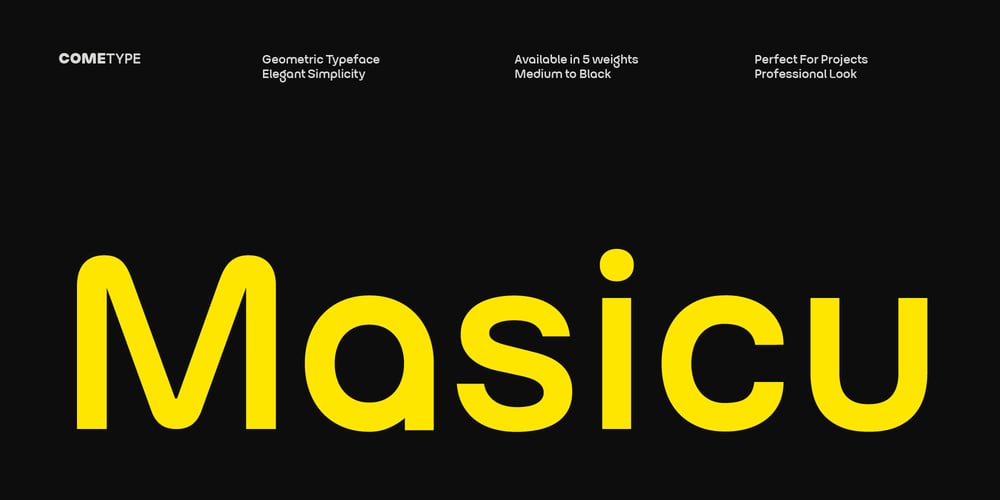
Masicu
Masicu font
Masicu Font Family was designed by abdul artega and published by Come Type. Masicu contains 5 styles and family package options. Masicu is a modern geometric typeface crafted with precision and elegant simplicity. Available in 5 weights—Medium, SemiBold, Bold, ExtraBold, and Black—it provides versatility for a wide range of design needs. Its clean and well-proportioned geometric shapes make it ideal for branding, headlines, posters, and other contemporary designs. Perfect for projects that demand a modern, bold, and professional look.